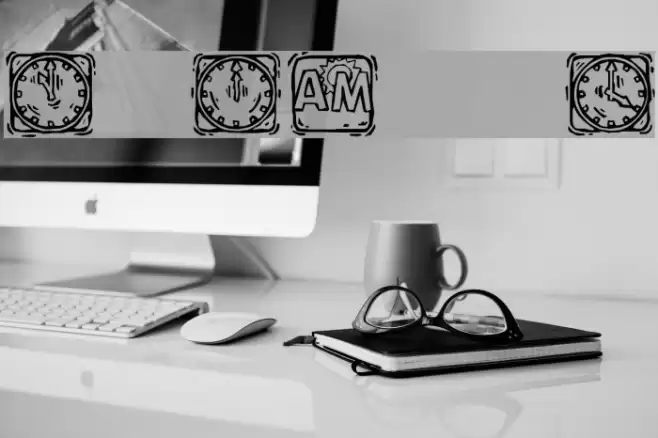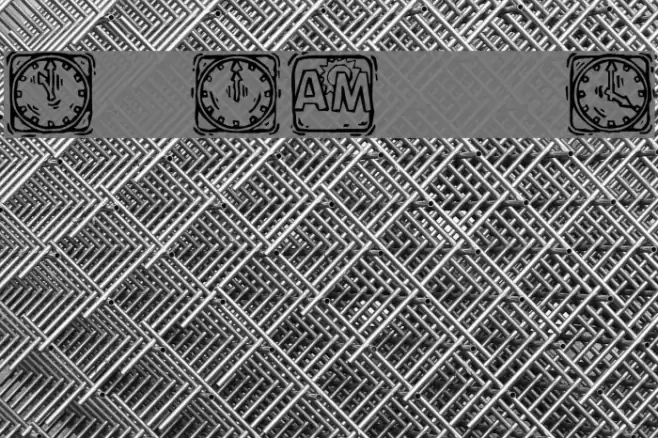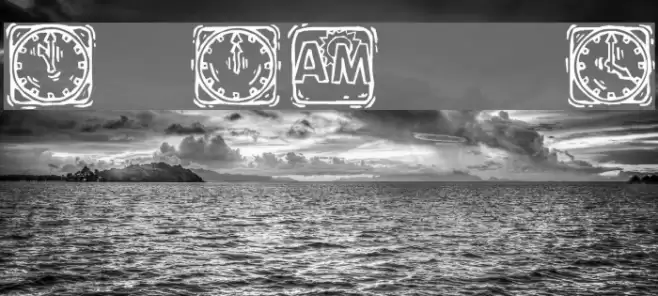
KR Lotsa Time Dings Font
KR Lotsa Time Dings Description
This is a decorative font featuring a playful and whimsical design. The characters are enclosed within square blocks, each adorned with intricate clock motifs and celestial elements like stars and sunbursts. The letters 'A' and 'M' are creatively combined with sun imagery, while 'P' and 'M' are paired with moon and stars, emphasizing a time-related theme. The overall style is cartoonish and fun, making it suitable for projects that require a lighthearted and thematic approach. The font's unique design elements make it stand out, offering a distinct visual appeal.
A whimsical, time-themed decorative font with playful clock and celestial motifs from Uncategorized fonts.
- Proposed Projects: Ideal for children's books, playful event invitations, themed posters, and educational materials.
- Use Case: Logos, Headlines, Themed Designs